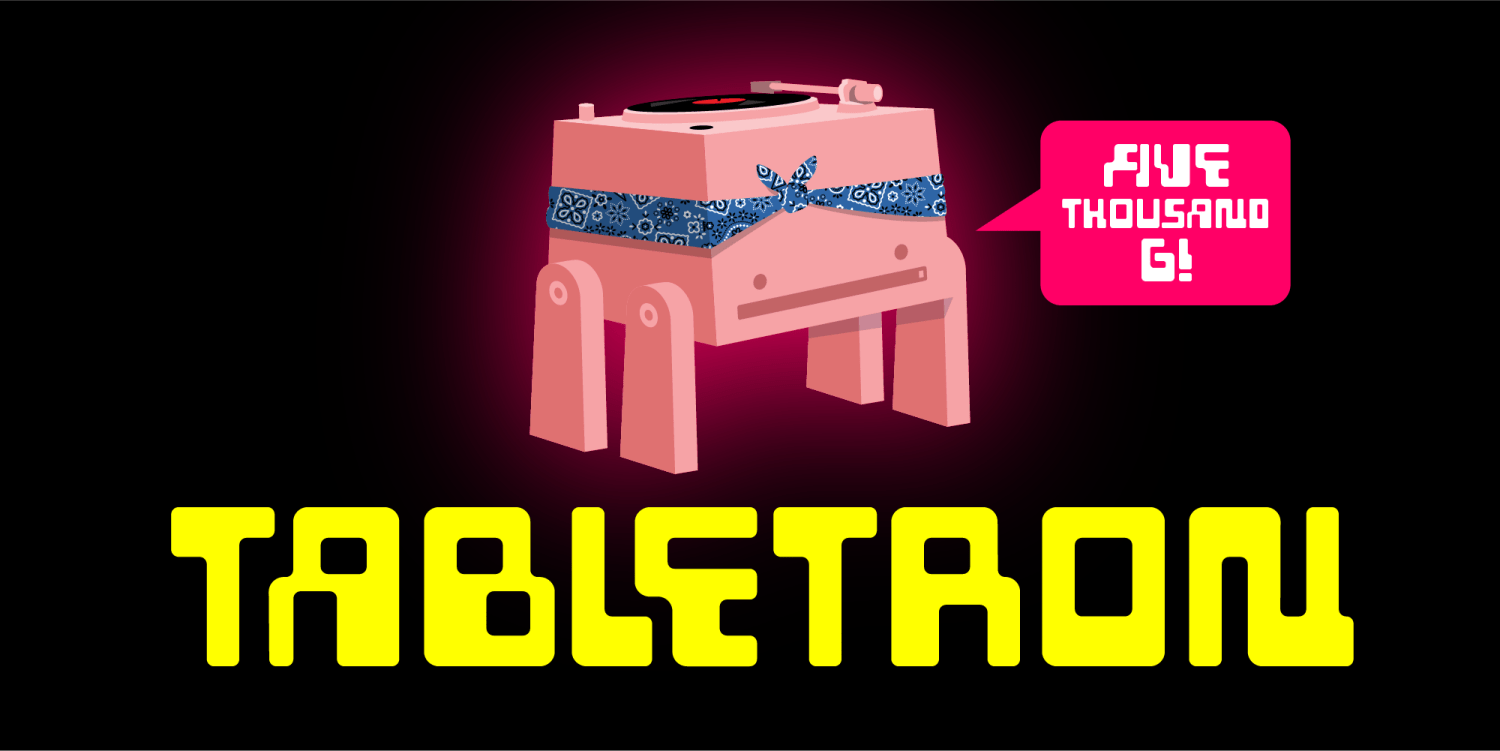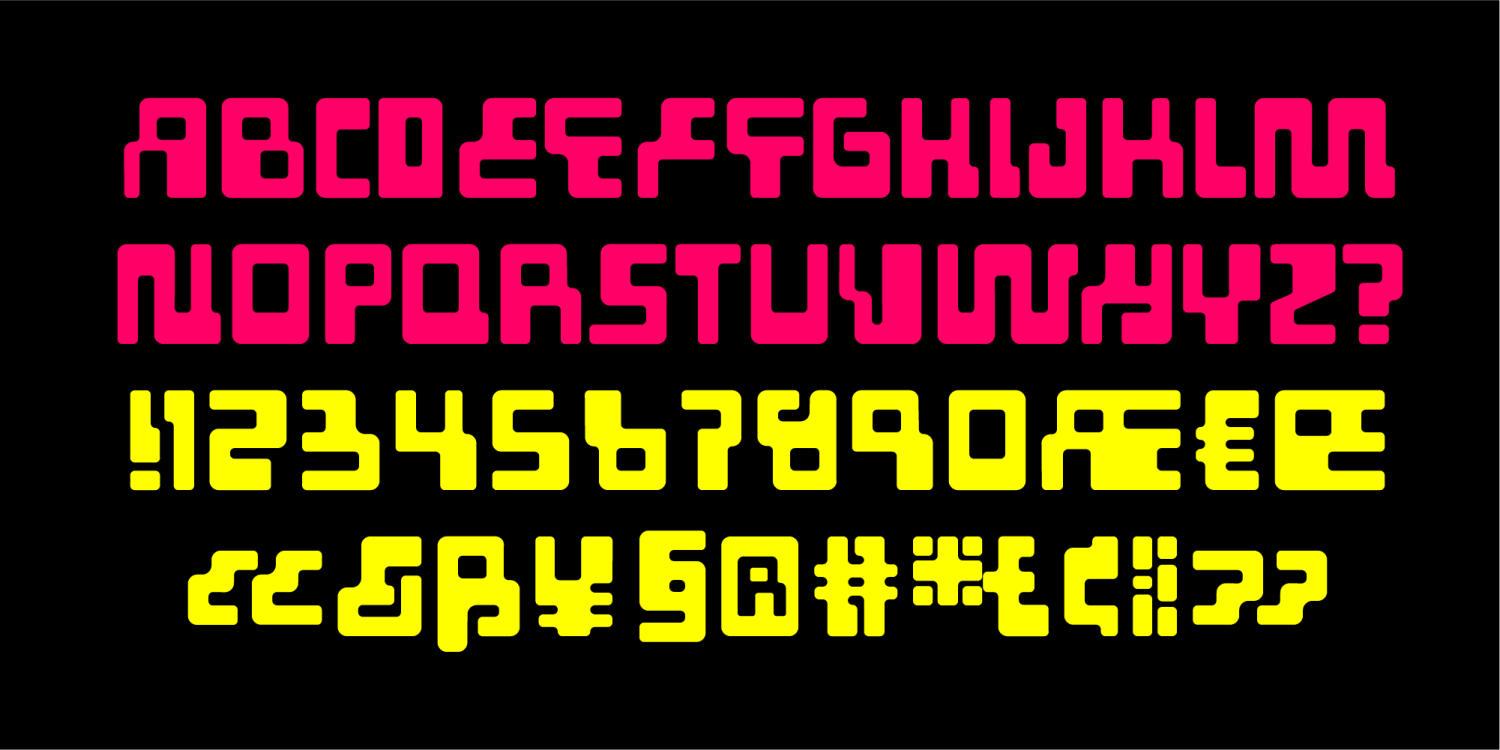
Tabletron
"Jibble jibby jibby!" goes Tabletron, a feature player in our old skool hip hop posse. Fantastic on the wheels of steel, sharp dresser, loves NKOTB and spins this tasty li'l typeface on the table.